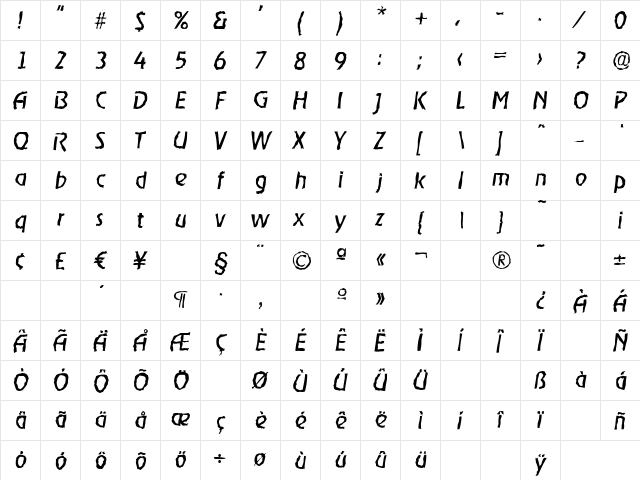
OnStageRandom Italic
Design Context for OnStageRandom Typeface
OnStageRandom is a composed and adaptable typeface that performs quietly and consistently across a wide range of design contexts. Its italic angle brings a sense of urgency and motion to the letterforms.